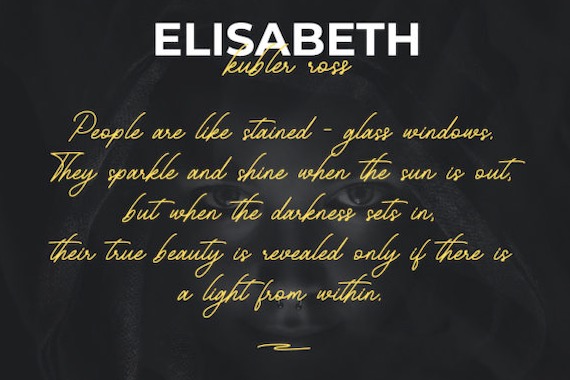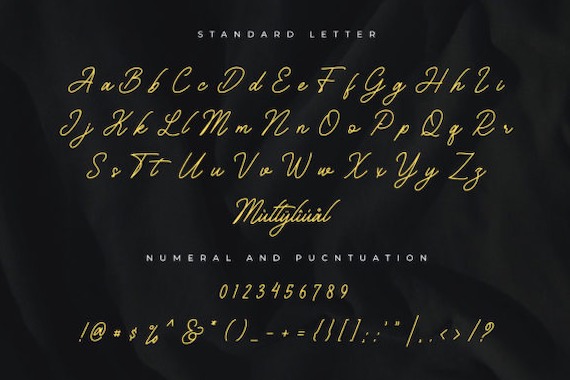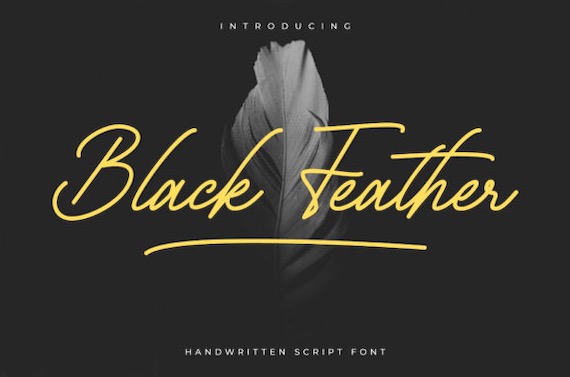
Black Feather is a retro delicate styled handwritten script font that was created and shared by Kgold. This script font is a good ideal for giving your designs a sweet feel. Its distinct and well-balanced letters make this font a masterpiece. Fall in love with its incredibly versatile style and use it to create spectacular designs!
Black Feather Handwritten Signature Font
Font family: Black Feather Font
Full font name: Black Feather Font